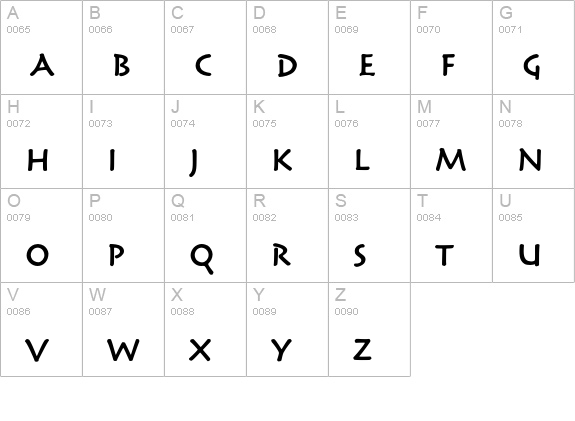
Reliq Std Semibold Calm is a sub-bold, structured variant in the Reliq typeface family \xE2\x80\x94 well suited to sub-headlines and emphasised passages.
Reliq Std Semibold Calm font is a beautiful and versatile typeface that exudes a sense of tranquility and sophistication. With its clean lines and balanced letterforms, this font is perfect for creating elegant designs that need a touch of serenity. The semibold weight of Reliq Std Semibold Calm font adds a subtle boldness to the characters, making them stand out while still maintaining a calm and composed demeanor. This font is ideal for headings, titles, and any design element that requires a strong yet soothing presence. One of the best things about Reliq Std Semibold Calm font is that it is freely available to download at FontsMarket.com. This means that you can use this font for personal or commercial projects without any limitations. Whether you are a professional designer or an individual looking to add a touch of sophistication to your creations, this font is a perfect choice. The clarity and legibility of Reliq Std Semibold Calm font make it suitable for a wide range of applications. From branding and packaging to digital and print designs, this font will bring a sense of calmness and professionalism to your projects. Its versatility allows it to seamlessly blend into various design styles, making it a go-to font for designers of all kinds. With its soothing and balanced aesthetic, Reliq Std Semibold Calm font effortlessly captures attention while maintaining a sense of tranquility. Its timeless design ensures that it will remain a classic choice for years to come. So, unlock your creativity and download Reliq Std Semibold Calm font for free at FontsMarket.com to elevate your designs to new heights.